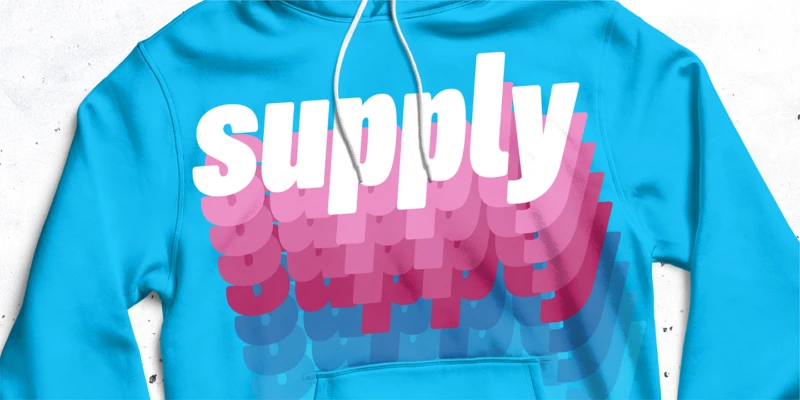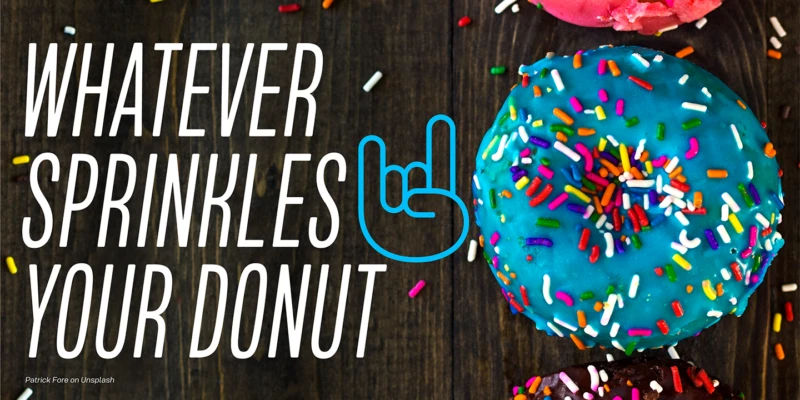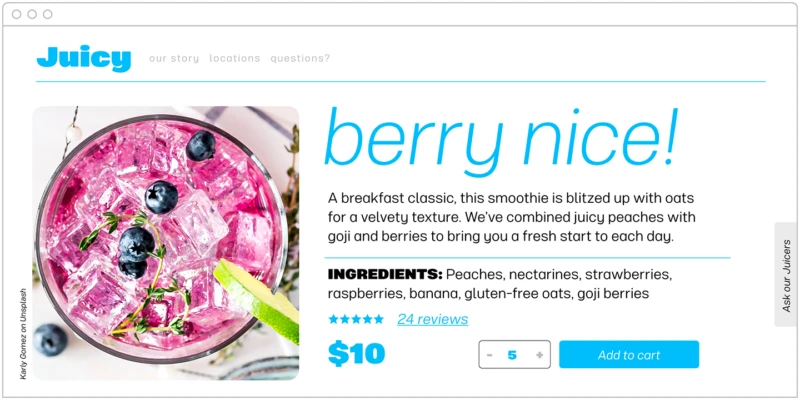
Mello Font Family
Mello is a bold, easy going Grotesque. It was designed for display, branding, advertising, packaging or anywhere a strong but friendly voice is needed. Mello features soft curves and rounded corners; set in 4 widths and 8 weights. The character set is robust, covering extended Latin. The default forms are contemporary with alternates including: single-story a, two-story g, rounded top A, traditional G, rounded leg R, rounded K, and rounded form y in both uppercase and lowercase, all separated into individual style sets for control and customization. A set of icons rounds out the character set, with hand signs and shapes.
Mello font by J Foundry — the word “supply” in white, sans-serif, rounded letters, repeated and layered in shades of pink and blue below it
Mello font by J Foundry — three posters with donut-themed text, one with “BAKER’S DOZEN” in a circle around a bitten donut icon, one with “DONUT KILL MY VIBE” and a donut with sun rays, and one with “LET’S GET BAKED” and an “OK” hand sign.
Mello font by J Foundry — the upright sans-serif words “WHATEVER SPRINKLES YOUR DONUT” next to a blue outline icon of a hand making a “rock on” gesture, with a blue-frosted donut covered in colorful sprinkles
Mello font by J Foundry — the word “Juicy” in bold sans-serif, and the italic sans-serif words “berry nice!”
Rounded Corners
Thin to Super Bold
Alternate A, K, Y
Alternate g, a, y
Italics
Alternate a, &
Language Support
Fractions
Emojiis
Arrows & Icons